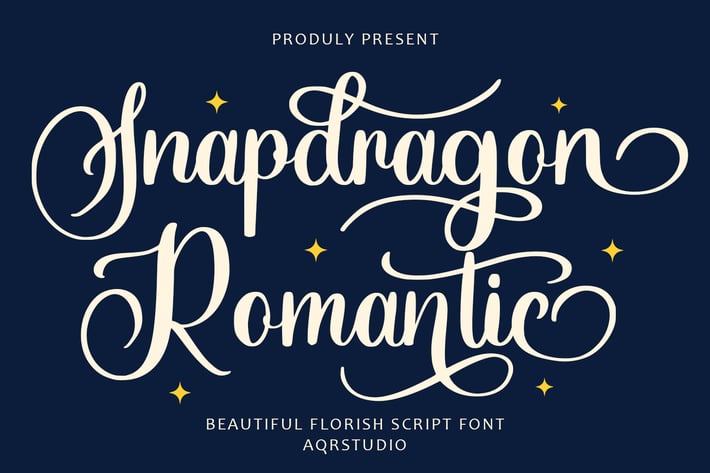
Snapdragon Romantic - Florish Script Font
Snapdragon Romantic - Flourish Script Font contains a lowercase, and uppercase, symbol, and also supports multi-language. There’s a lot of ligature in this font. Snapdragon Romantic - Flourish Script Font also comes with ligatures, stylistic alternates, and many more.
this font is suitable for fashion, branding, catalog, and other designs that you want.